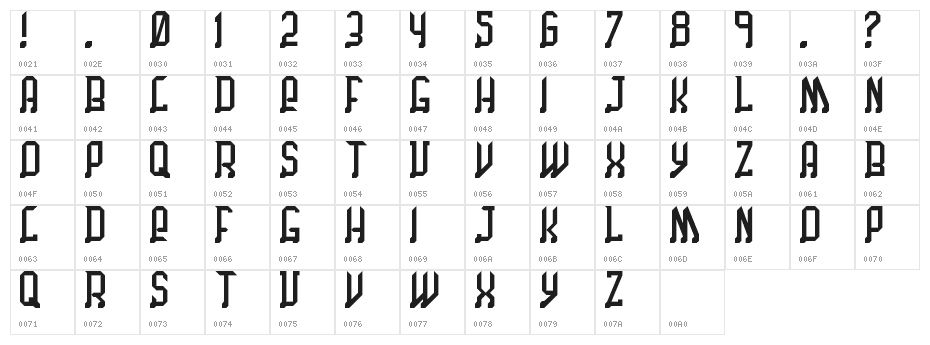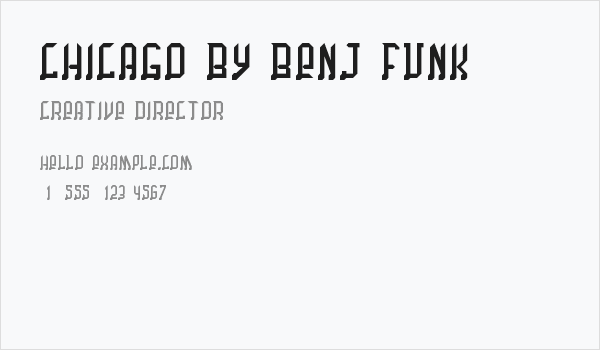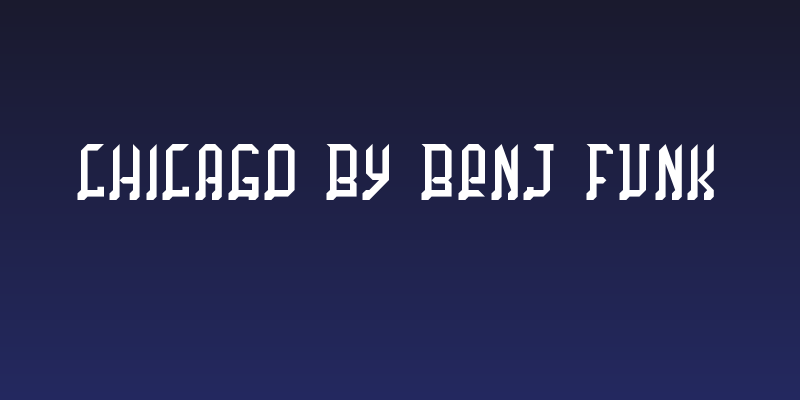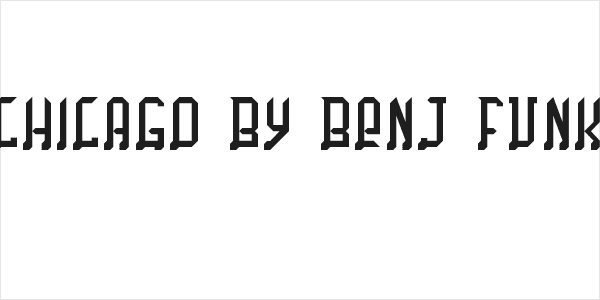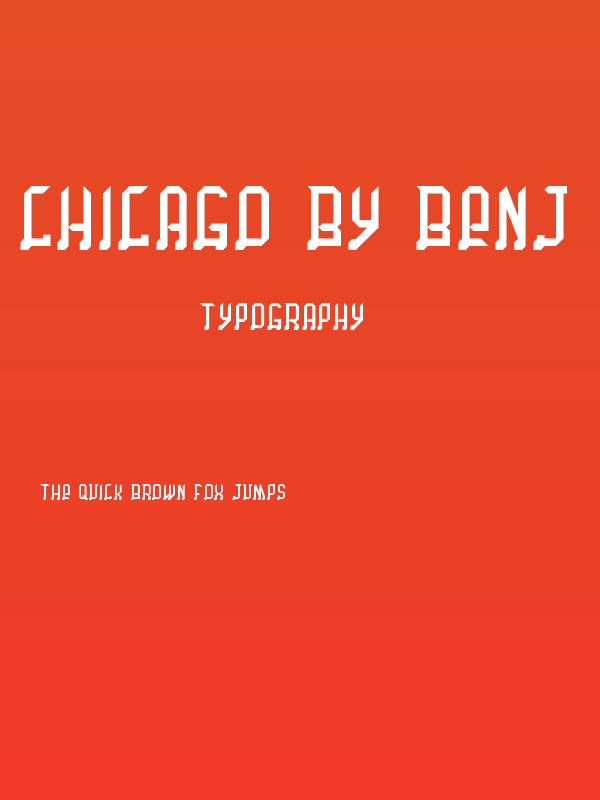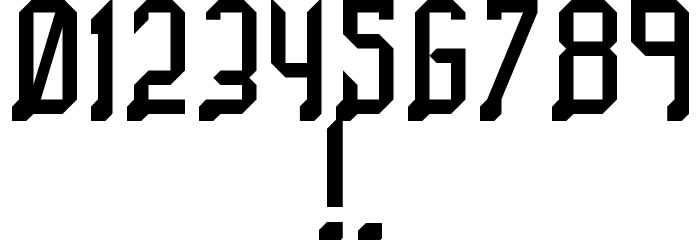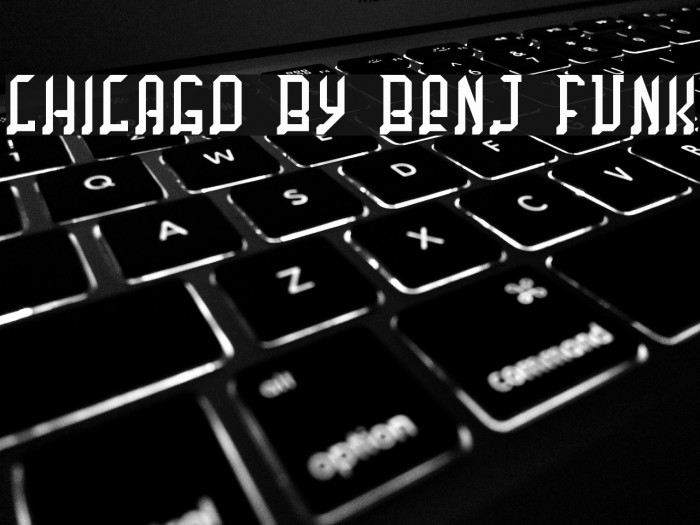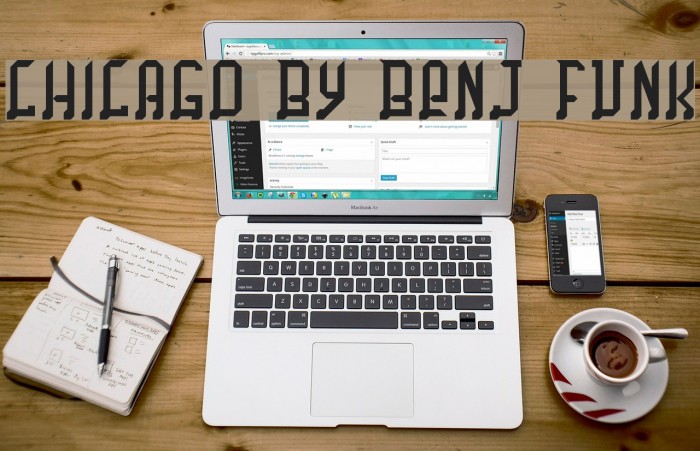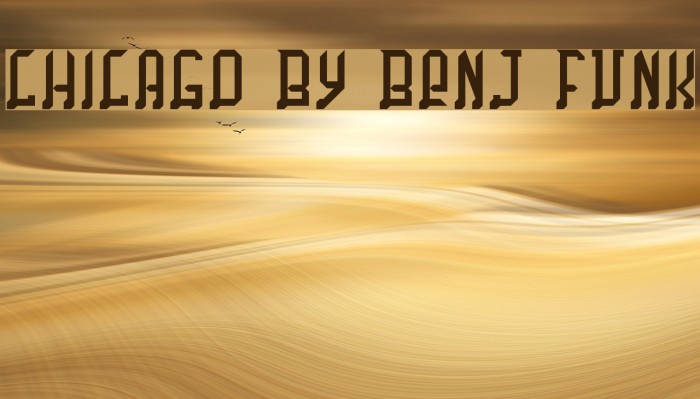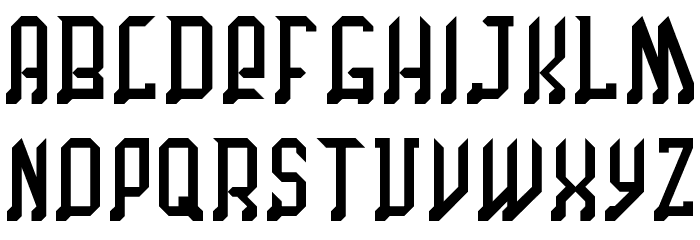
Chicago by Benj Funk Font
This font features a bold, geometric design with sharp angles and a futuristic aesthetic. The characters are constructed with a consistent stroke width, giving it a monospaced appearance. The uppercase letters are particularly striking, with a strong presence and a unique, angular style that sets them apart. The numerals and special characters maintain the same bold and geometric characteristics, ensuring a cohesive look across all glyphs. This font's distinct style makes it ideal for projects that require a modern and edgy feel.
| Proposed Projects | Ideal for branding, posters, album covers, and any project needing a modern, edgy look. |